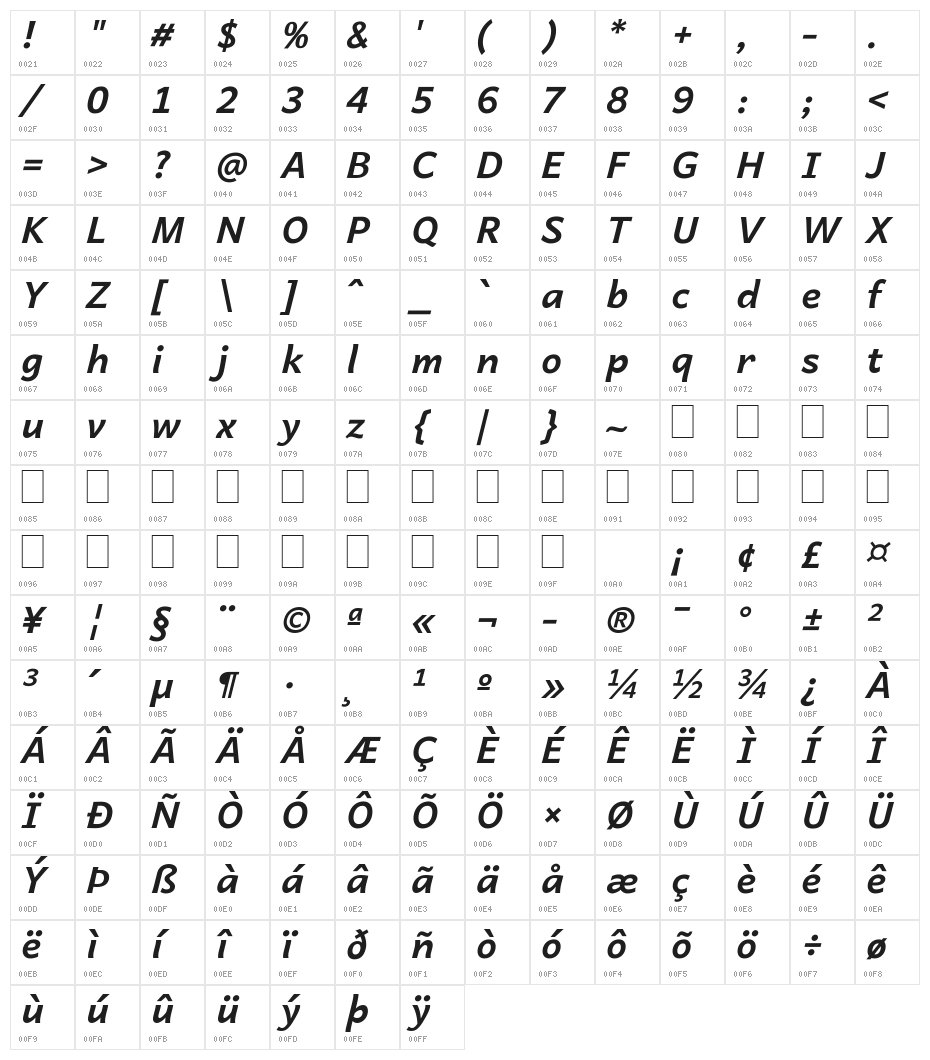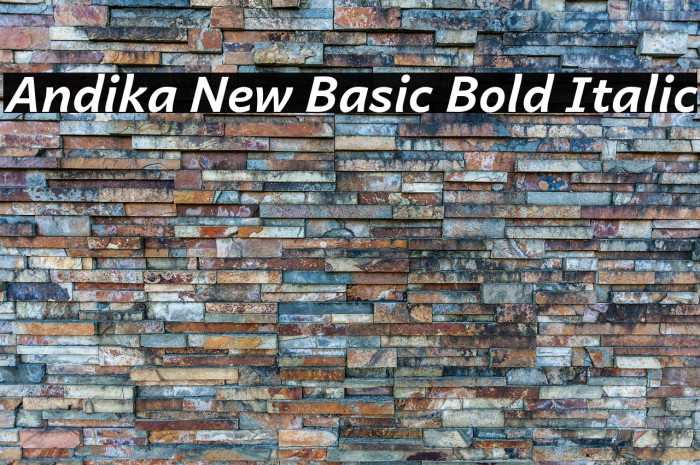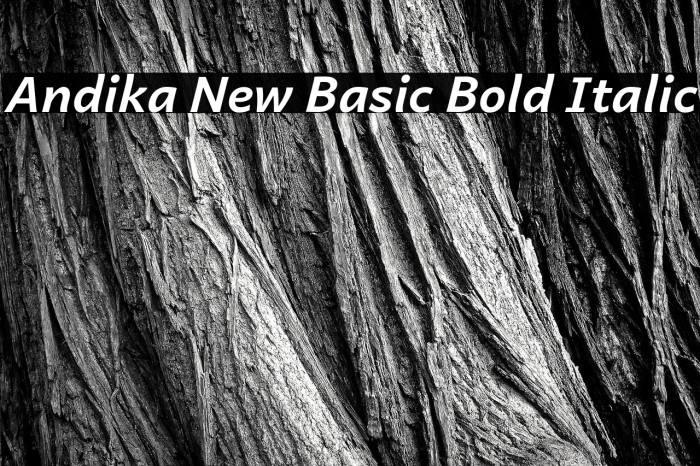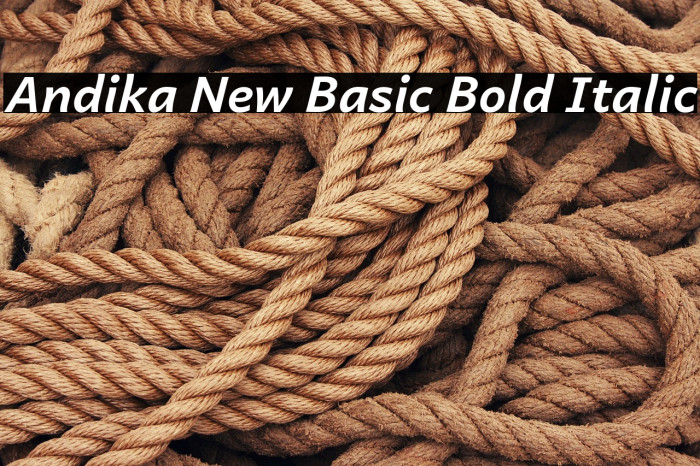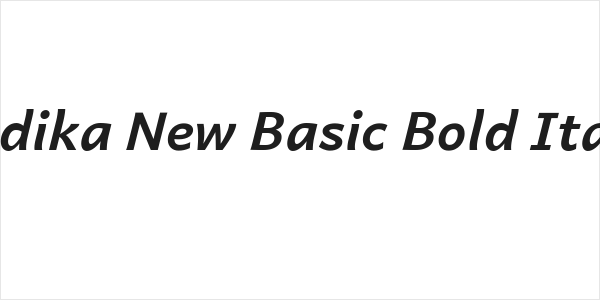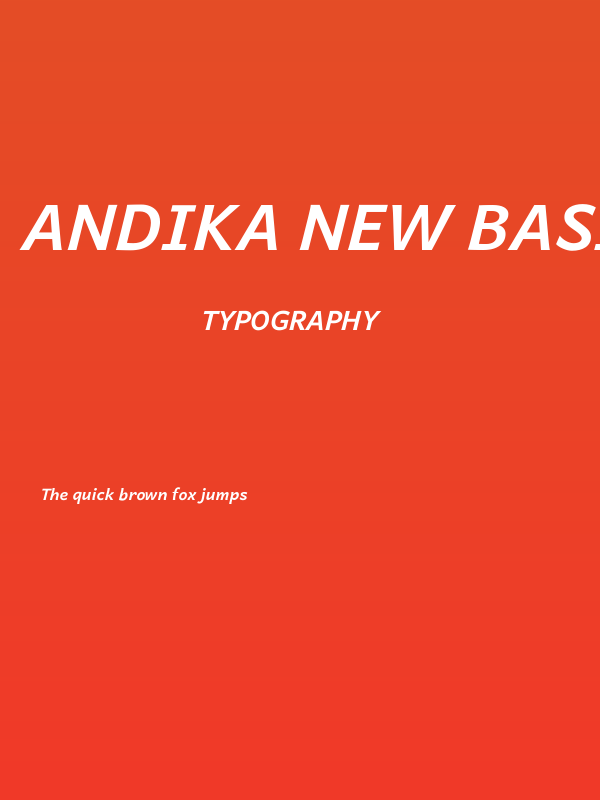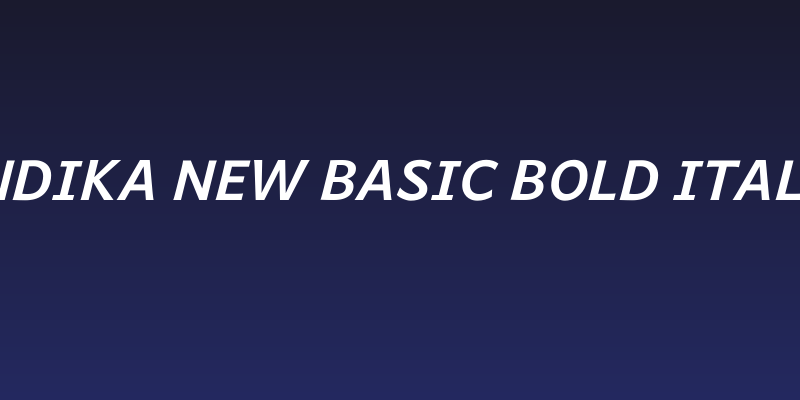
Andika New Basic Bold Italic Font
Andika New Basic Bold Italic Description
This font features a clean and modern sans-serif style with a bold and italicized appearance. The characters are slightly slanted, giving a dynamic and forward-moving feel. The strokes are consistent in weight, providing a uniform look across all characters. The uppercase letters are well-proportioned, while the lowercase letters maintain a smooth and rounded form. Numbers are clear and easily distinguishable, and the special characters are designed to match the overall aesthetic. The font's design is versatile, making it suitable for a variety of applications.
| Use Case | Headlines, Logos, Digital content |
| Proposed Projects | Ideal for branding, advertising, headlines, and digital content where a modern and bold statement is needed. |